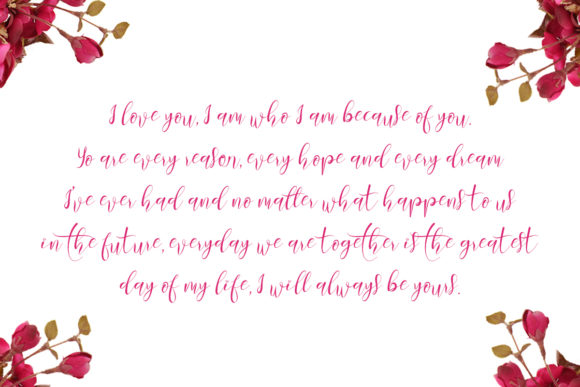
About Monalissa Font
Monalissa feels incredibly elegant and flowing. It looks stunning on wedding invitations, thank you cards, quotes, greeting cards, logos, business cards and every other design which needs a handwritten touch. It features a varying baseline, smooth lines, gorgeous glyphs and stunning alternates.